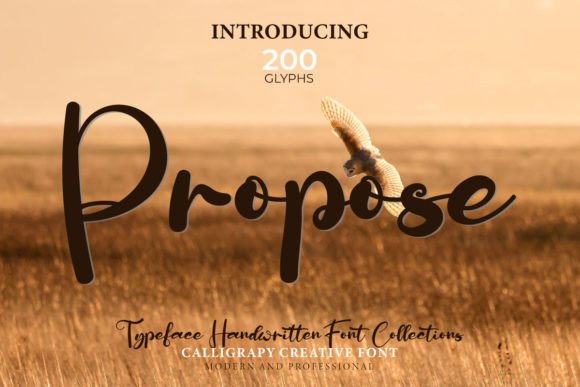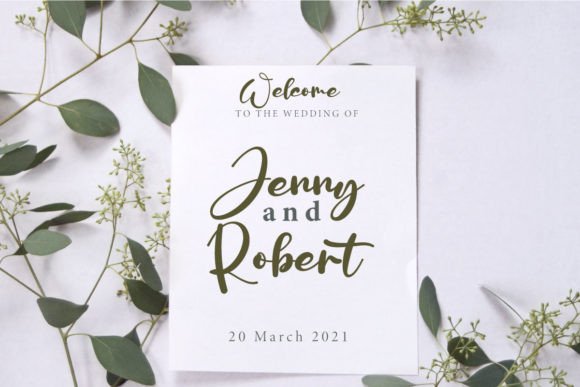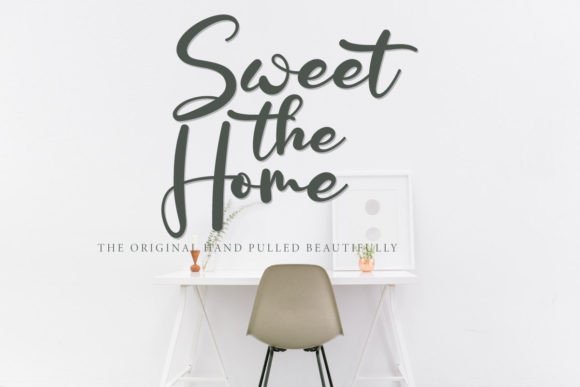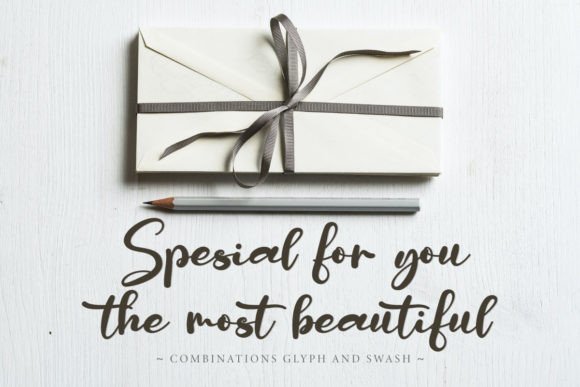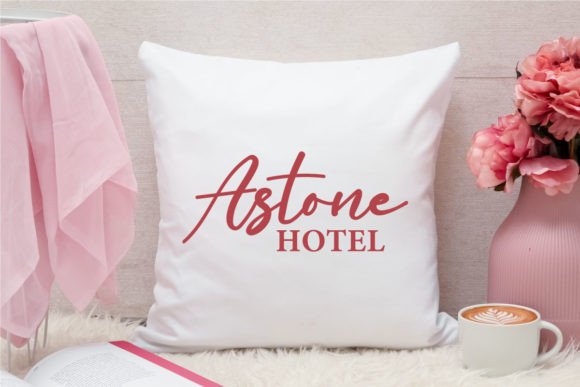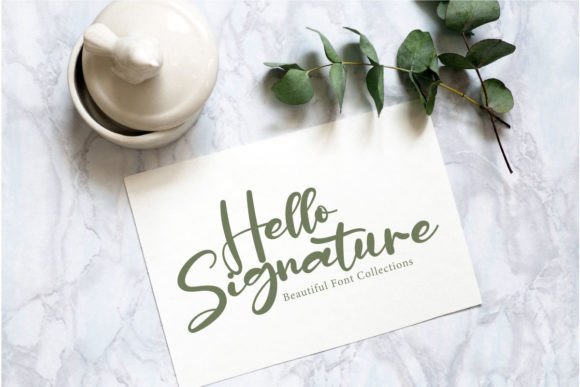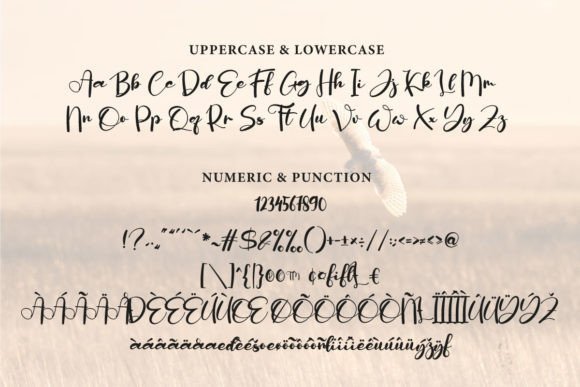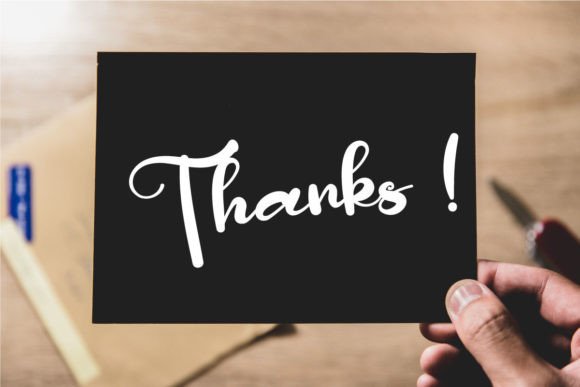
Propose Font
About Propose Font
Introducing Propose, a beautiful handwritten font designed to bring elegance and style to a wide range of creative projects. Propose is the perfect choice for wall displays, wedding invitations, social media posts, logos, advertisements, product packaging, product designs, labels, photography, watermarks, invitations, stationery, and any project that demands impressive typography.
The beauty of Propose lies in its handwritten aesthetic, adding a personal and artistic touch to your designs. Whether you’re creating a romantic wedding invitation or crafting a sophisticated logo, Propose elevates your typography with its distinctive and graceful style.
Imagine Propose enhancing your social media posts, capturing attention with its beautiful script. Visualize it gracing product packaging and labels, creating an unforgettable impression on customers. Use Propose for wall displays to convey a message with a touch of elegance and charm.
Propose is a versatile font that adapts seamlessly to various design contexts, making it an ideal choice for those seeking impressive and stylish typography. Its application extends from invitations to product designs, ensuring that your projects stand out with a unique and artistic flair.
In summary, Propose is not just a font; it’s a creative tool that transforms your typography into a thing of beauty. Add Propose to your font collection and experience how it brings a touch of sophistication to your projects, making them visually stunning and impressive.